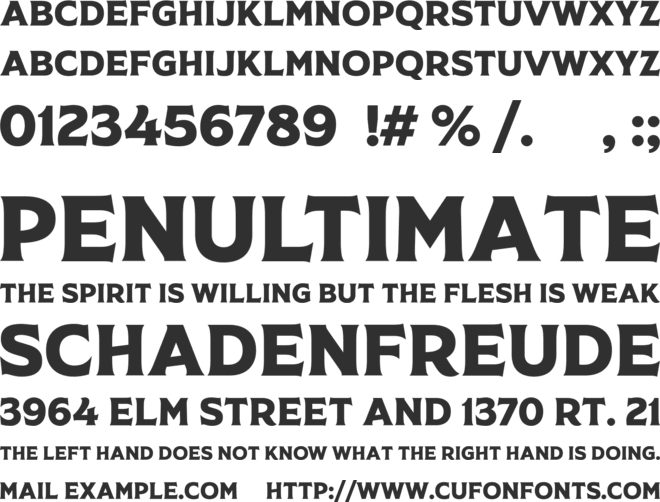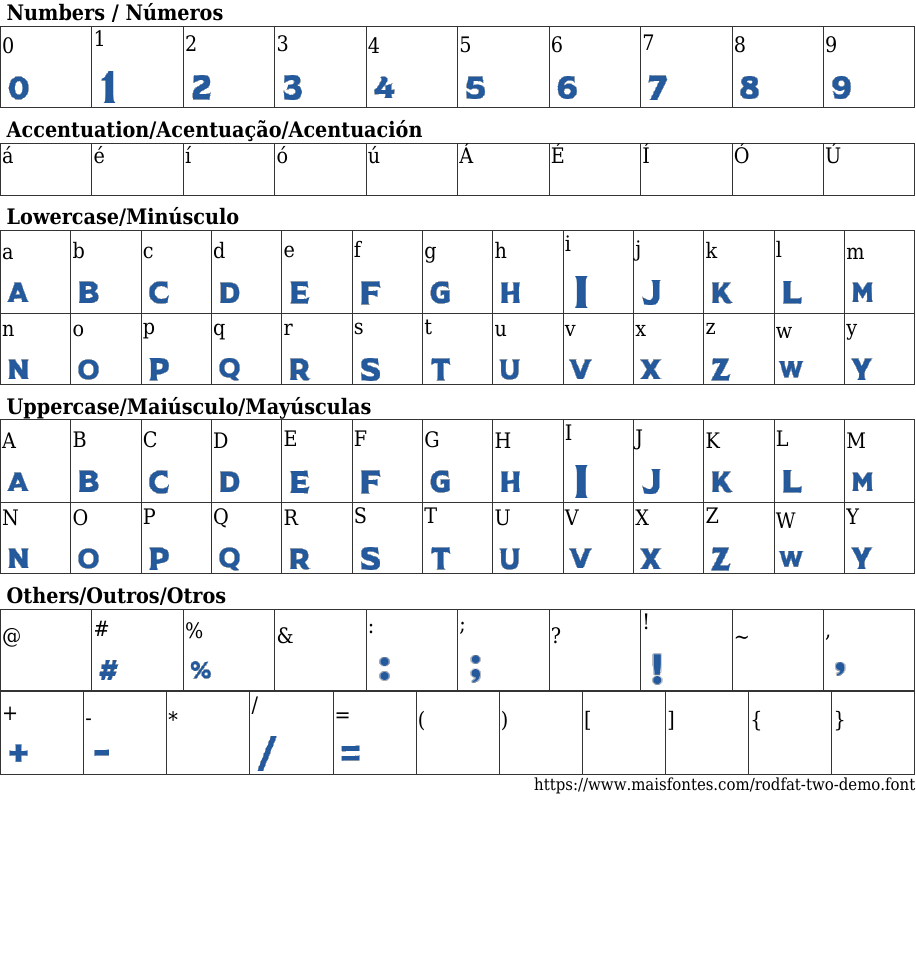
Rodfat Two Font
Rodfat Two Font - The typeface contains 1 file and supports 12 languages. ️ this font has been downloaded 1,000+ times. It will bring back the early days of the 20th. Rodfat two demo was developed rizki muharam permana. Download and install the rodfat two demo font for free from ffonts.net. Inspired by the industrial revolution. Rodfat two demo is a font.
Rodfat two demo was developed rizki muharam permana. The typeface contains 1 file and supports 12 languages. ️ this font has been downloaded 1,000+ times. It will bring back the early days of the 20th. Inspired by the industrial revolution. Download and install the rodfat two demo font for free from ffonts.net. Rodfat two demo is a font.
Download and install the rodfat two demo font for free from ffonts.net. Rodfat two demo is a font. Inspired by the industrial revolution. ️ this font has been downloaded 1,000+ times. It will bring back the early days of the 20th. The typeface contains 1 file and supports 12 languages. Rodfat two demo was developed rizki muharam permana.
Inspired by the industrial revolution. The typeface contains 1 file and supports 12 languages. Rodfat two demo was developed rizki muharam permana. Download and install the rodfat two demo font for free from ffonts.net. It will bring back the early days of the 20th.
The typeface contains 1 file and supports 12 languages. ️ this font has been downloaded 1,000+ times. Inspired by the industrial revolution. Rodfat two demo is a font. Download and install the rodfat two demo font for free from ffonts.net.
️ this font has been downloaded 1,000+ times. The typeface contains 1 file and supports 12 languages. It will bring back the early days of the 20th. Rodfat two demo is a font. Download and install the rodfat two demo font for free from ffonts.net.
The typeface contains 1 file and supports 12 languages. Download and install the rodfat two demo font for free from ffonts.net. Rodfat two demo is a font. It will bring back the early days of the 20th. Rodfat two demo was developed rizki muharam permana.
It will bring back the early days of the 20th. Rodfat two demo was developed rizki muharam permana. ️ this font has been downloaded 1,000+ times. The typeface contains 1 file and supports 12 languages. Download and install the rodfat two demo font for free from ffonts.net.
Rodfat two demo was developed rizki muharam permana. Inspired by the industrial revolution. It will bring back the early days of the 20th. Download and install the rodfat two demo font for free from ffonts.net. Rodfat two demo is a font.
Download and install the rodfat two demo font for free from ffonts.net. Rodfat two demo is a font. ️ this font has been downloaded 1,000+ times. Rodfat two demo was developed rizki muharam permana. The typeface contains 1 file and supports 12 languages.
Rodfat two demo is a font. The typeface contains 1 file and supports 12 languages. Inspired by the industrial revolution. ️ this font has been downloaded 1,000+ times. It will bring back the early days of the 20th.
Inspired by the industrial revolution. Rodfat two demo is a font. The typeface contains 1 file and supports 12 languages. It will bring back the early days of the 20th. Rodfat two demo was developed rizki muharam permana.
The typeface contains 1 file and supports 12 languages. Download and install the rodfat two demo font for free from ffonts.net. It will bring back the early days of the 20th. Rodfat two demo was developed rizki muharam permana.
Inspired By The Industrial Revolution.
Rodfat two demo is a font.